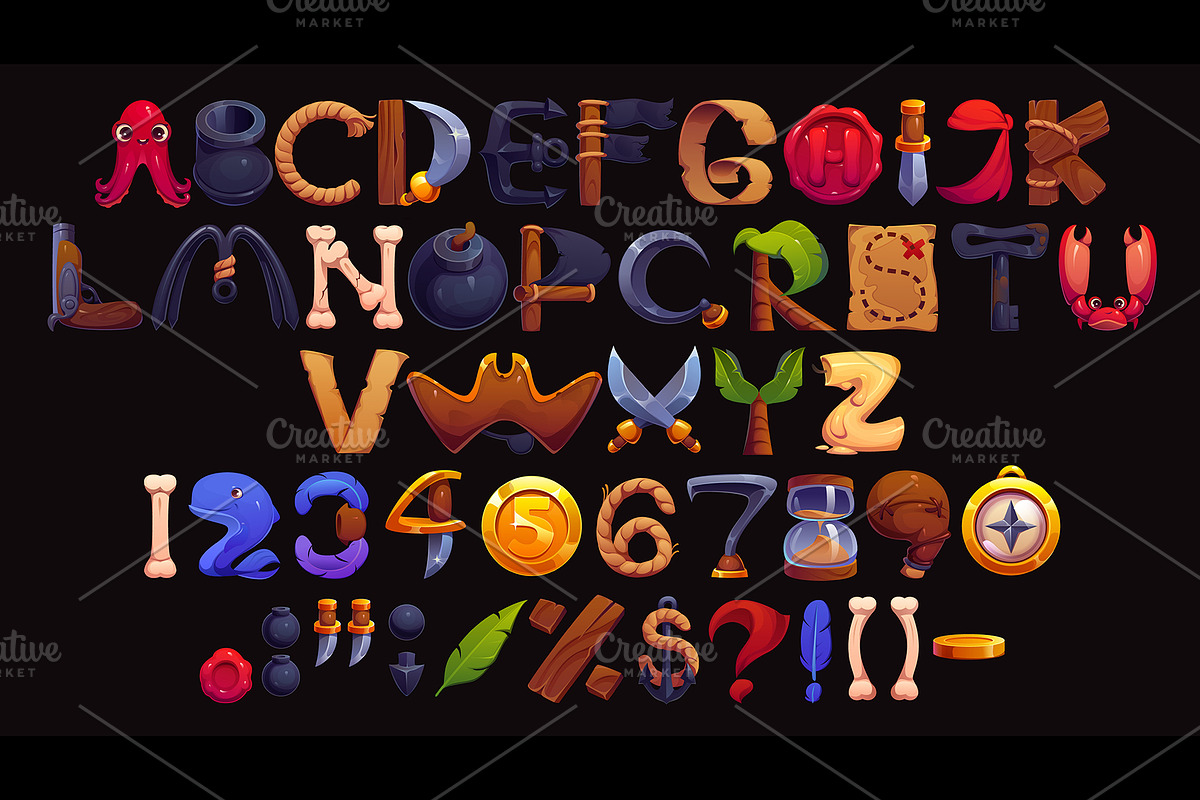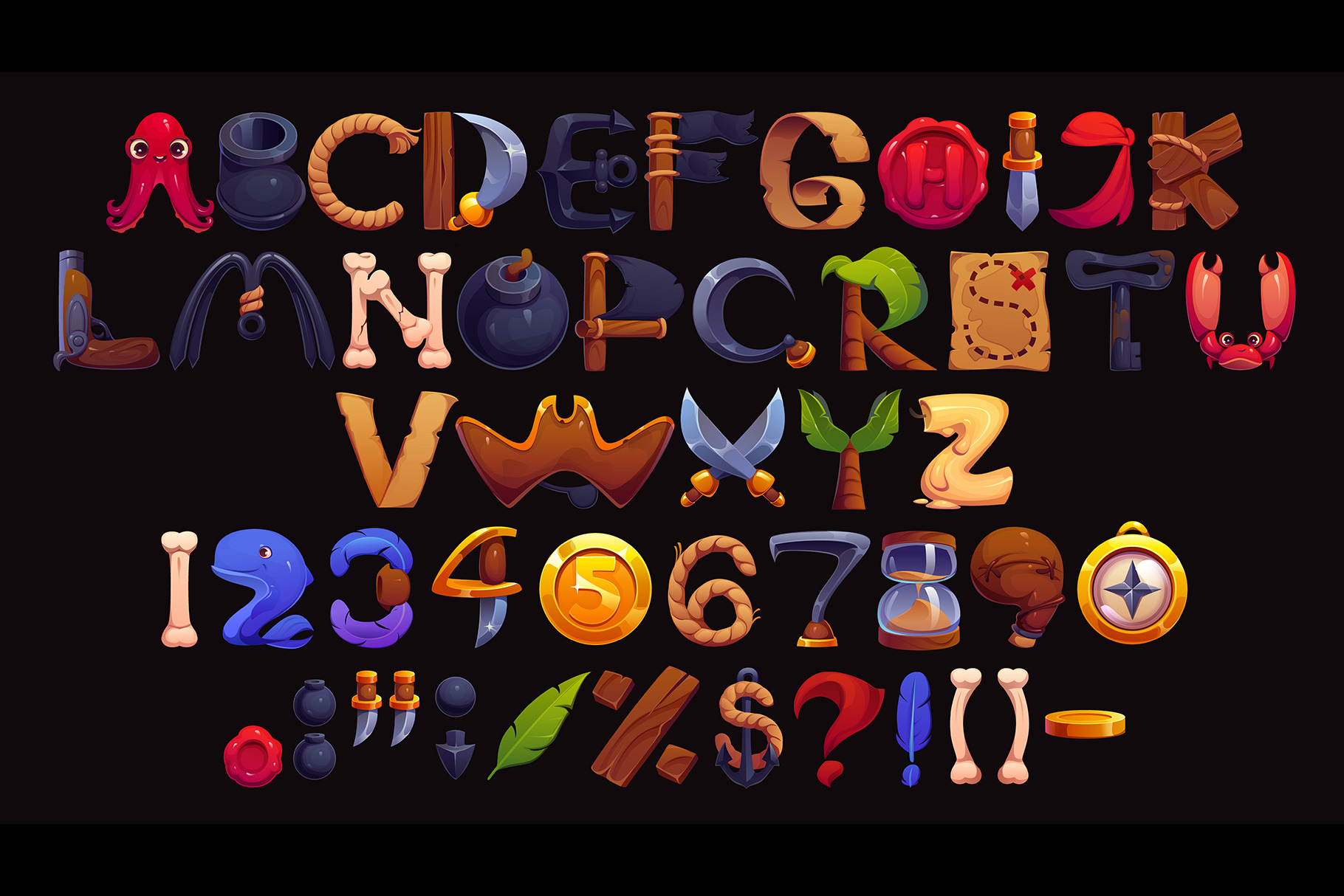
Cartoon pirate font, Caribbean
Cartoon pirate font, Caribbean corsairs typeface vector letters, English piracy alphabet type and number set with ropes, cannons, swords, gold coins. Nautical abc for kids, treasure maps or adventures. Keywords - cartoon, pirate, font, caribbean, corsair, typeface, letter, english, piracy, alphabet, type, typography, vector, abc, character, nautical, number, symbol, kid, sea, adventure, treasure, ship, ocean, map, sword, rope, cannon, island, hook, flag, coin, sign, game, fantasy, gold, funny, filibuster, sailor, captain, dagger, compass, bone, decorative, playful, fun, set, wood, metal